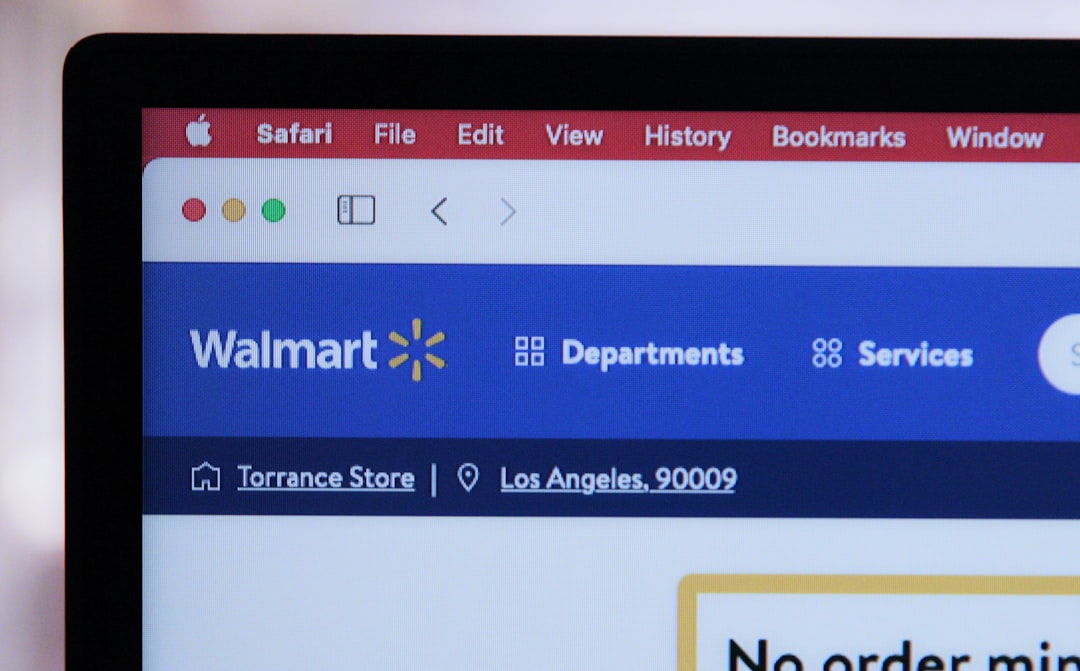
What Font Does Walmart Use?
Quick answerThe Walmart logo wordmark is custom lettering — a bold, friendly rounded sans paired with the yellow “spark.” Walmart’s brand typeface is Bogle, a proprietary custom sans, and earlier identity work has been linked to a custom face nicknamed Everyday Sans. None are public. For a free match, use a rounded sans like Nunito or Baloo 2.
The Walmart font question separates cleanly into logo versus brand type. The wordmark is bespoke lettering, while the wider identity runs on Walmart’s custom typeface, Bogle. This article explains what Walmart actually uses, the history behind it, and which free fonts get you closest to the approachable, everyday look.
What font is the Walmart logo?
The Walmart logo wordmark is custom lettering — a bold, rounded, lowercase sans-serif sitting beside the yellow six-point “spark.” The letterforms are friendly and slightly heavy, with soft terminals that read as approachable and value-oriented rather than corporate. Because the wordmark was custom-drawn, there is no font file that reproduces it exactly. A font-identifier tool will point you toward rounded sans typefaces, which is the right category, but not the precise logo letters.
So while shoppers often search for a single “Walmart font,” the accurate answer is that the wordmark is bespoke and proprietary.
What font does Walmart use for branding?
Walmart’s brand typeface is Bogle, a custom sans-serif used across advertising, signage, packaging, and digital. Bogle is a clean, friendly sans designed to carry the brand’s tone consistently everywhere it appears, and it is proprietary — not available for public download. In earlier identity discussions, Walmart’s custom display lettering has also been referred to by the nickname Everyday Sans, reflecting the brand’s “everyday low prices” positioning.
We should be honest about naming: Bogle is the well-documented modern brand font, while “Everyday Sans” is a label tied to Walmart’s custom display work rather than a typeface you can buy. Either way, the throughline is the same — Walmart controls its type rather than licensing something downloadable.
What’s a free Walmart font alternative?
The Walmart look is defined by bold, rounded, friendly sans letterforms. The best free options are:
• Nunito (free) — a balanced rounded sans on Google Fonts with soft terminals that closely echo the approachable Walmart wordmark, and is free for commercial use.
• Baloo 2 (free) — a heavier rounded sans that captures the bold, chunky confidence of the logo lettering.
• Quicksand (free) — a lighter geometric rounded sans for cleaner, modern headlines in the same friendly family.
Walmart’s fonts vs. the free alternatives
Use case Font Style Free alternative
Logo wordmark Custom Walmart lettering Bold rounded sans Baloo 2
Brand typeface Bogle (proprietary) Friendly sans Nunito
Display / nickname “Everyday Sans” (custom) Rounded display sans Quicksand
Body text Bogle / licensed sans Neutral sans Open Sans
Why does Walmart use a custom font?
A bespoke typeface like Bogle gives Walmart one consistent, ownable voice across thousands of stores, packages, and screens — something no competitor can license. A custom family also lets the brand tune weight, roundness, and spacing so signage reads instantly from across a parking lot while staying warm and value-friendly up close. It’s the same ownable-identity strategy used by major retailers everywhere: control the type, and you control the brand’s voice in every aisle and ad.
For your own work, the practical takeaway is simple: the bold, rounded, friendly qualities are all reproducible with a free font like Nunito or Baloo 2, and the wordmark and spark are trademarks you shouldn’t copy.
How to get the Walmart look on a budget
To capture Walmart’s friendly, everyday type feel without proprietary fonts, follow this approach:
1. Start with a rounded sans. Use Nunito or Baloo 2 for soft terminals and an approachable, value-forward read.